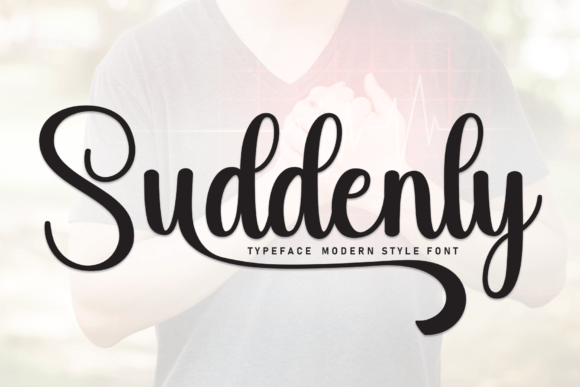
Welcome to the world of Suddenly Font, a breathtaking creation from andikastudio, a name synonymous with artistry and innovation in the realm of typography. Suddenly Font is not merely a collection of letters; it's an expression of elegance, a dance of characters across the digital canvas, capturing the very essence of vintage charm.
Immerse yourself in the allure of this script font, a masterpiece that evokes a sense of nostalgia and warmth. Its delicate strokes, reminiscent of a gentle breeze caressing a flower petal, bring a touch of timeless beauty to any design. With Suddenly Font, your words will bloom with grace and sophistication, leaving an unforgettable impression on your audience.
Whether you're designing wedding invitations, greeting cards, or crafting eye-catching logos, Suddenly Font is your perfect companion. Its versatility knows no bounds, allowing you to create designs that exude a timeless elegance or a whimsical charm. Let your creativity soar as you explore the endless possibilities that Suddenly Font presents.
**Embrace the Vintage Charm**
With Suddenly Font, you hold the key to unlocking a world of vintage allure. Its intricate details and flowing lines capture the essence of a bygone era, adding a touch of nostalgia and romance to your designs. Imagine your words adorned with the grace of yesteryears, evoking a sense of timeless elegance and charm.
**Personalize Your Designs**
Make your designs truly unique and personal with Suddenly Font. Its handwritten style adds a touch of intimacy and warmth, as if each word was lovingly crafted just for you. Whether you're creating invitations for a special occasion or simply adding a personal touch to your digital creations, Suddenly Font will elevate your designs to new heights of individuality.
**Create Designs That Stand Out**
In a world saturated with digital noise, it's essential to make your designs stand out from the crowd. Suddenly Font is your secret weapon, a tool that will transform your creations into captivating masterpieces. Its unique style and intricate details will draw attention and leave a lasting impression on your audience. Prepare to witness your designs shine brighter than ever before.